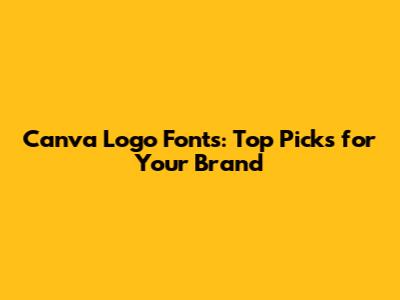
Hey design enthusiasts and business owners! Today, we're diving deep into something super important for your brand's identity: the best fonts in Canva for logos. Choosing the right font can make or break your logo, guys. It's not just about picking something that looks pretty; it's about conveying your brand's personality, its values, and what it stands for. Think about it – a bold, blocky font screams strength and reliability, while a delicate script font might suggest elegance and luxury. In the vast ocean of Canva's font library, finding that perfect match can feel a bit overwhelming. But don't you worry, because I'm here to guide you through it. We'll explore different font categories, discuss what makes a font great for logos, and highlight some absolute gems that you can start using right away. Get ready to elevate your brand's visual appeal with fonts that truly resonate!
Why Font Choice Matters for Your Logo
Let's get real for a second, why is picking the right font for your logo such a massive deal? It's all about communication without words. Your logo is often the first impression a potential customer has of your brand. If your font is hard to read, doesn't match your brand's vibe, or just looks plain unprofessional, you might be sending the wrong message from the get-go. Think about the biggest brands out there. Coca-Cola's iconic script? It evokes a sense of nostalgia and classic fun. Google's friendly sans-serif? It screams accessibility and modernity. Each choice is deliberate and contributes to the overall brand perception. For your logo, the font needs to be legible at various sizes – from a tiny favicon on a website to a massive billboard. It should also be versatile enough to look good on different backgrounds and applications. Furthermore, the font's style can instantly communicate your industry and target audience. A playful, rounded font might be perfect for a children's toy store, but it would probably look out of place for a law firm. Conversely, a stern, serif font might suit a financial institution but would feel too formal for a trendy coffee shop. Your font is a silent salesperson, working 24/7 to tell your brand's story. That's why spending time selecting the best font in Canva for your logo isn't just a design step; it's a strategic business decision. It impacts memorability, perceived quality, and ultimately, customer connection. So, let's make sure that silent salesperson is saying all the right things!
Understanding Font Categories for Logos
Before we jump into specific font recommendations, it's super helpful to get a handle on the main categories of fonts, especially when you're aiming to create a killer logo in Canva. Understanding these will help you zero in on what you need. First up, we have Serifs. These are your classic, traditional fonts. Think of those little 'feet' or strokes at the end of the letters – that's what makes them serifs. Fonts like Times New Roman or Garamond fall into this category. Serifs often convey a sense of tradition, reliability, authority, and sophistication. They're great for brands that want to project an image of trust, history, or high quality, like established law firms, luxury brands, or academic institutions. Next, we have Sans-Serifs. The name literally means 'without serifs', so these fonts lack those little strokes. Helvetica, Arial, and Open Sans are prime examples. Sans-serifs are generally considered more modern, clean, minimalist, and approachable. They are incredibly versatile and highly legible, making them a fantastic choice for a wide range of businesses, especially tech companies, startups, and brands aiming for a contemporary feel. Then there are Script fonts. These fonts mimic handwriting or calligraphy, ranging from elegant and flowing to casual and scribbled. Think of something like brush script or elegant cursive. Script fonts can add a personal, artistic, or sophisticated touch. They're often used for brands that want to convey creativity, elegance, luxury, or a personal connection, like wedding invitations, bakeries, or artisanal products. However, you've got to be careful with script fonts for logos; they can sometimes be hard to read, especially at smaller sizes. Finally, we have Display fonts (sometimes called Decorative fonts). These are the unique, attention-grabbing fonts designed for headlines and, you guessed it, logos! They come in all sorts of styles – quirky, retro, futuristic, bold, artistic. Display fonts are all about personality and making a statement. They are perfect for brands that want to stand out and have a strong, distinctive visual identity. However, just like script fonts, legibility can be an issue, so use them wisely and test them thoroughly. Knowing these categories will empower you to make a more informed decision when you're browsing through Canva's extensive library to find the best font in Canva for your logo.
Top Serif Fonts in Canva for Timeless Logos
Alright guys, let's talk about serif fonts in Canva that bring that timeless, trustworthy vibe to your logo. If your brand is all about heritage, expertise, or a classic sense of quality, then a well-chosen serif font is your best bet. These fonts just have a way of grounding your brand, making it feel established and dependable. They're like the comfortable armchair of the font world – reliable and sophisticated. When you're scrolling through Canva, keep an eye out for fonts that balance readability with a touch of elegance. A good serif font for a logo should have clear letterforms, not be overly ornate (unless that's precisely your brand's niche!), and possess a certain gravitas. We want something that feels substantial, not flimsy. Think about how these fonts work in different contexts – will it look good on a business card? On a website header? On social media graphics? You need a font that holds its own. Some fantastic serif options you might find include classics that are often available or similar styles that capture their essence. For instance, look for fonts that echo the strong, confident lines of a Garamond or the authoritative presence of a Trajan Pro-inspired typeface. Canva often has its own proprietary fonts that are inspired by these classics, so explore options labeled as 'classic serif' or 'traditional'. When choosing, pay attention to the weight – a light serif might feel too delicate, while a bold serif can convey power. Consider the spacing between letters (kerning) too; good kerning is crucial for a professional look. A serif font can instantly elevate your brand, making it appear more credible and enduring. It’s about conveying a sense of permanence and trustworthiness. So, if you’re aiming for that established, quality feel, don't shy away from the classics. A strong serif is often one of the best font in Canva for logos when you want to build a lasting impression and assure your audience of your brand's solid foundation. Test it out, see how it pairs with any other logo elements, and trust your gut. A timeless serif can be a game-changer!
Best Sans-Serif Fonts in Canva for Modern Brands
Now, let's switch gears to the world of sans-serif fonts in Canva, which are absolute powerhouses for modern, clean, and accessible brands. If your business is tech-focused, a startup, or anything aiming for a contemporary, no-fuss aesthetic, sans-serifs are your go-to. They're the epitome of minimalist design, focusing on clarity and readability, which is key for logos. Think about brands like Google, Facebook, or Spotify – their logos all use sans-serif fonts, and they’re instantly recognizable and feel current. When you're on the hunt in Canva, look for sans-serifs that are geometric and clean, or perhaps have a slightly humanist touch for added warmth. The beauty of sans-serifs lies in their simplicity and versatility. They work exceptionally well across all digital platforms and print materials, ensuring your logo looks sharp wherever it appears. Some universally loved sans-serif families that often have great counterparts or direct versions in Canva include Open Sans, Lato, and Montserrat. These fonts are celebrated for their balanced proportions, excellent legibility, and friendly yet professional feel. Montserrat, in particular, has a great geometric structure that feels very modern and architectural. Open Sans is renowned for its readability and neutral, friendly appearance. Lato offers a similar clarity with a subtle warmth. When selecting, consider the x-height (the height of lowercase letters like 'x') – a larger x-height generally improves readability. Also, look at the 'aperture' – the openings in letters like 'c' or 'e'. Wider apertures can make the font clearer at small sizes. A great sans-serif logo font should feel approachable yet authoritative, clean without being cold. It communicates efficiency, innovation, and a forward-thinking mindset. Choosing a strong sans-serif is definitely one of the best font in Canva for logos if you want your brand to feel current, trustworthy, and easily digestible. They’re the workhorses of the design world for a reason, guys – dependable, stylish, and always in vogue!
Creative Script & Display Fonts for Unique Logos
Okay, so you've explored the classics and the moderns, but what if your brand needs a little oomph, something with a distinct personality? That's where creative script and display fonts in Canva come into play! These are the fonts that make a statement, that grab attention, and that can inject a serious dose of character into your logo. If your brand is artistic, playful, luxurious, or just wants to be downright memorable, these fonts are worth considering. Script fonts, as we touched on, mimic handwriting or calligraphy. They can range from elegant, flowing scripts that whisper luxury and romance (think wedding invitations or high-end boutiques) to more casual, brush-stroke styles that feel energetic and creative (perfect for artists, bloggers, or cafes). When selecting a script font for your logo, the most crucial factor is legibility. It needs to be readable at a glance, even in smaller sizes. Avoid overly complex or thin scripts that blur together. Look for scripts that have clear letterforms and a distinct flow. Canva offers many beautiful script options, so experiment with ones that feel authentic to your brand's voice. On the other hand, display fonts are the wild cards. They are designed to be unique and eye-catching, often with distinctive shapes, bold strokes, or retro flair. These are fantastic for brands that want to be bold, quirky, or nostalgic. Think vintage-inspired logos, futuristic designs, or anything that needs to stand out from the crowd. When choosing a display font, think about its impact. Does it align with your brand's message? Is it memorable? And again, can people actually read it? You don't want your logo to be a puzzle. Some display fonts are designed specifically for logos and will have better readability. Always test these fonts in various sizes and applications to ensure they don't become illegible or lose their impact. Using a unique script or a striking display font can be a fantastic way to ensure your logo is not just seen, but remembered. It’s often the secret ingredient that makes a logo truly unforgettable and positions it as one of the best font in Canva for logos when uniqueness and personality are paramount. Just remember to balance that creativity with readability!
Tips for Choosing the Best Font in Canva for Your Logo
Alright, you've got the lowdown on font types, and you're ready to dive into Canva. But before you go wild clicking on every font that catches your eye, let's arm you with some pro tips for choosing the best font in Canva for your logo. This is where the magic happens, guys! First and foremost, know your brand. Seriously, what's your brand's personality? Is it playful, serious, luxurious, affordable, modern, traditional? Your font choice must align with this. If you're a serious financial advisor, a bubbly script font probably isn't the best fit, right? Conversely, if you're a hip craft brewery, a stuffy old-school serif might feel out of touch. Legibility is king. I cannot stress this enough. Your logo will be seen on everything from phone screens to billboards. If people can't easily read your brand name, you've got a problem. Test your chosen font at different sizes, both small and large. Zoom in, zoom out, and see if it holds up. Consider font pairing (if applicable). While a logo often uses just one font, sometimes a wordmark might incorporate a secondary font or tagline. If so, ensure your fonts complement each other, not compete. Generally, pairing a serif with a sans-serif, or a bold display font with a simple sans-serif, works well. Canva makes it easy to see font pairings, so play around! Think about uniqueness. While using a popular font is fine, try to find one that feels a bit distinct or customize it slightly (Canva allows some modifications). You don't want your logo to blend in with every other business using the same default font. Check licensing. This is crucial, especially if you plan to use your logo commercially. Most fonts in Canva's free library are free for commercial use, but it's always good practice to double-check the specific font's terms if you're using a Pro font or one you've uploaded. Simplicity often wins. Especially for logos, cleaner designs tend to be more timeless and versatile. Avoid overly decorative or complex fonts unless they are absolutely central to your brand's identity and highly legible. Finally, get feedback. Show your potential logo designs to others, especially your target audience, and ask them what feeling or message the font conveys. Their fresh perspective can be invaluable. By following these tips, you'll be well on your way to selecting the absolute best font in Canva for your logo that truly represents your brand and resonates with your audience.
Conclusion: Finding Your Brand's Perfect Font Match
So there you have it, my design-loving friends! We've journeyed through the essentials of choosing the best font in Canva for your logo. Remember, your logo's font is far more than just decoration; it's a critical component of your brand's identity. It's the visual voice that communicates your brand's personality, values, and promises to the world. We've explored the power of serifs for conveying tradition and trust, the clean efficiency of sans-serifs for modern appeal, and the distinctive flair of script and display fonts for making a unique statement. The key takeaway? Legibility, brand alignment, and versatility are your guiding stars. Don't be afraid to experiment within Canva's vast library. Try pairing different font weights, explore various styles, and always, always test your choices at different sizes and on different mockups. Your perfect font is out there waiting to be discovered. It's the one that feels just right, the one that makes your brand instantly recognizable and memorable. Whether you opt for a classic, a contemporary, or a quirky choice, ensure it speaks volumes about who you are as a business. Happy designing, and may your logo be as impactful as you envision it to be!